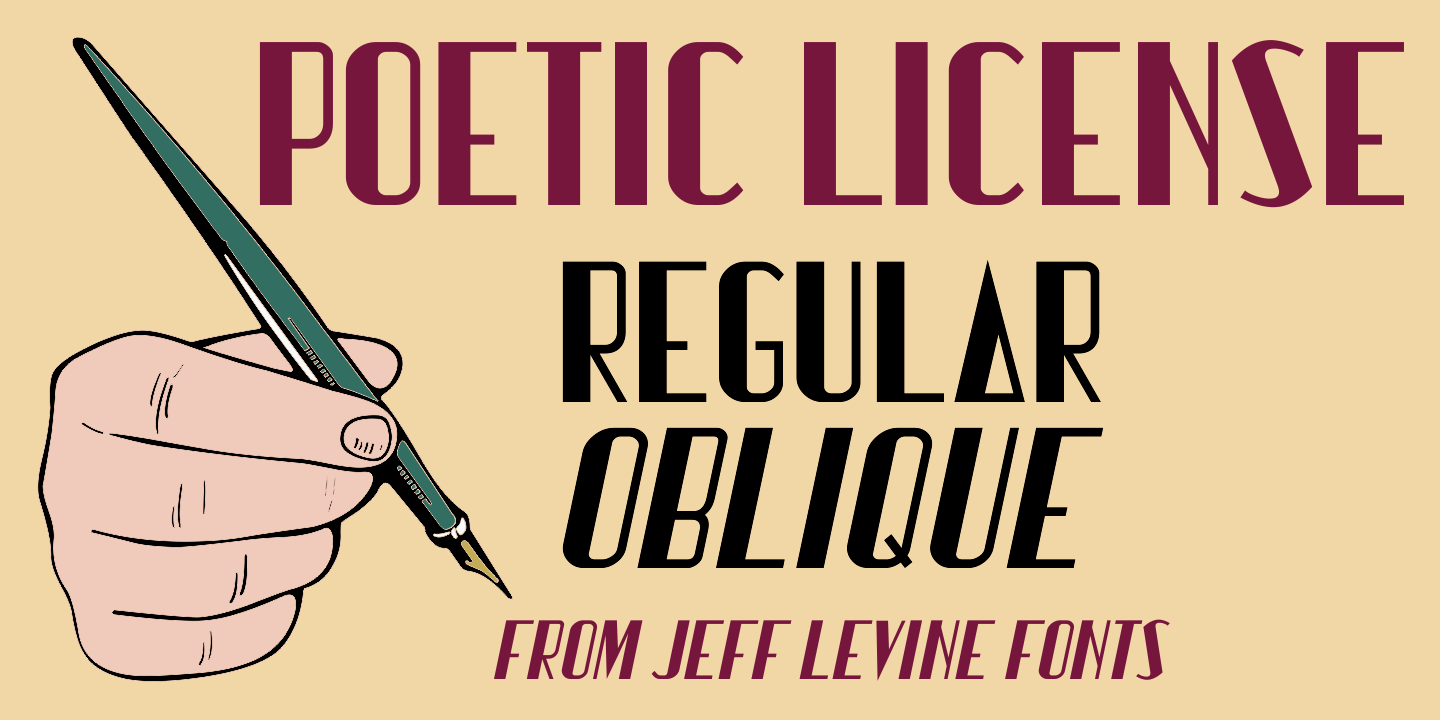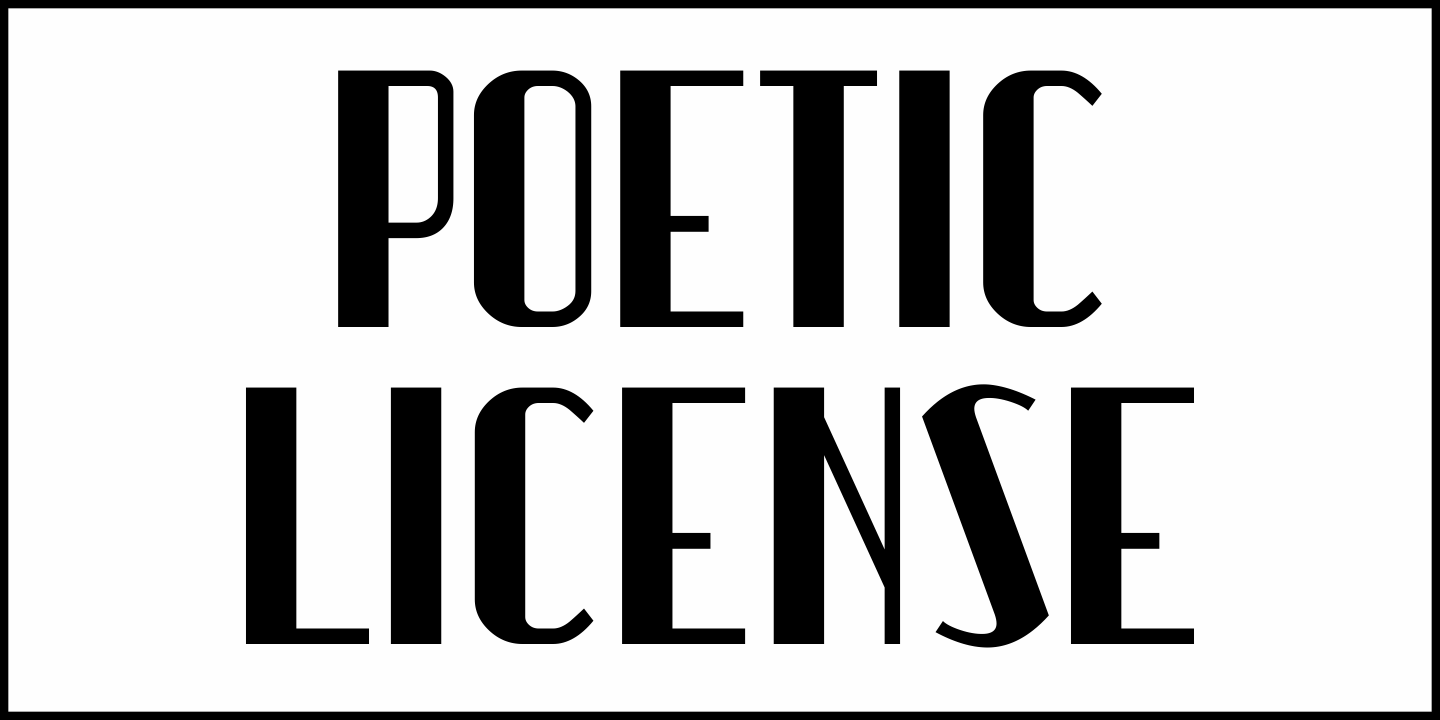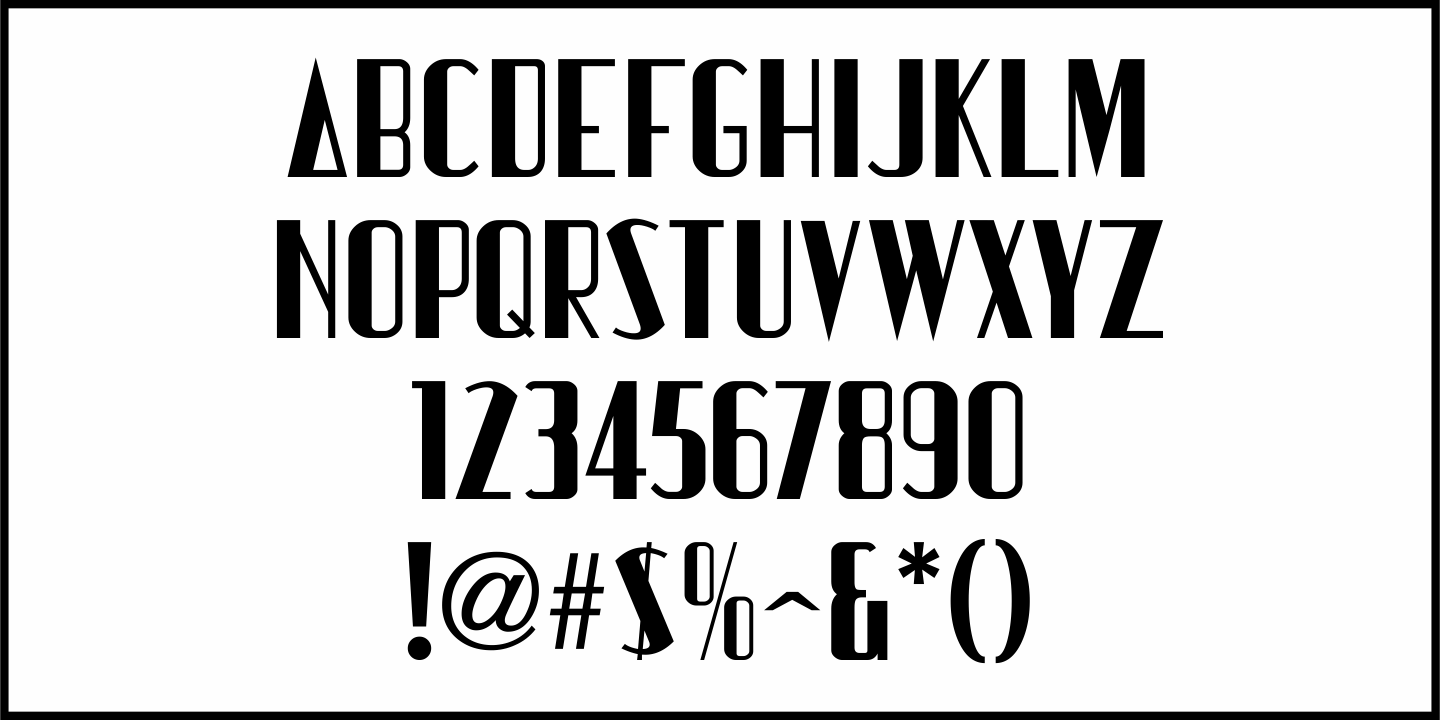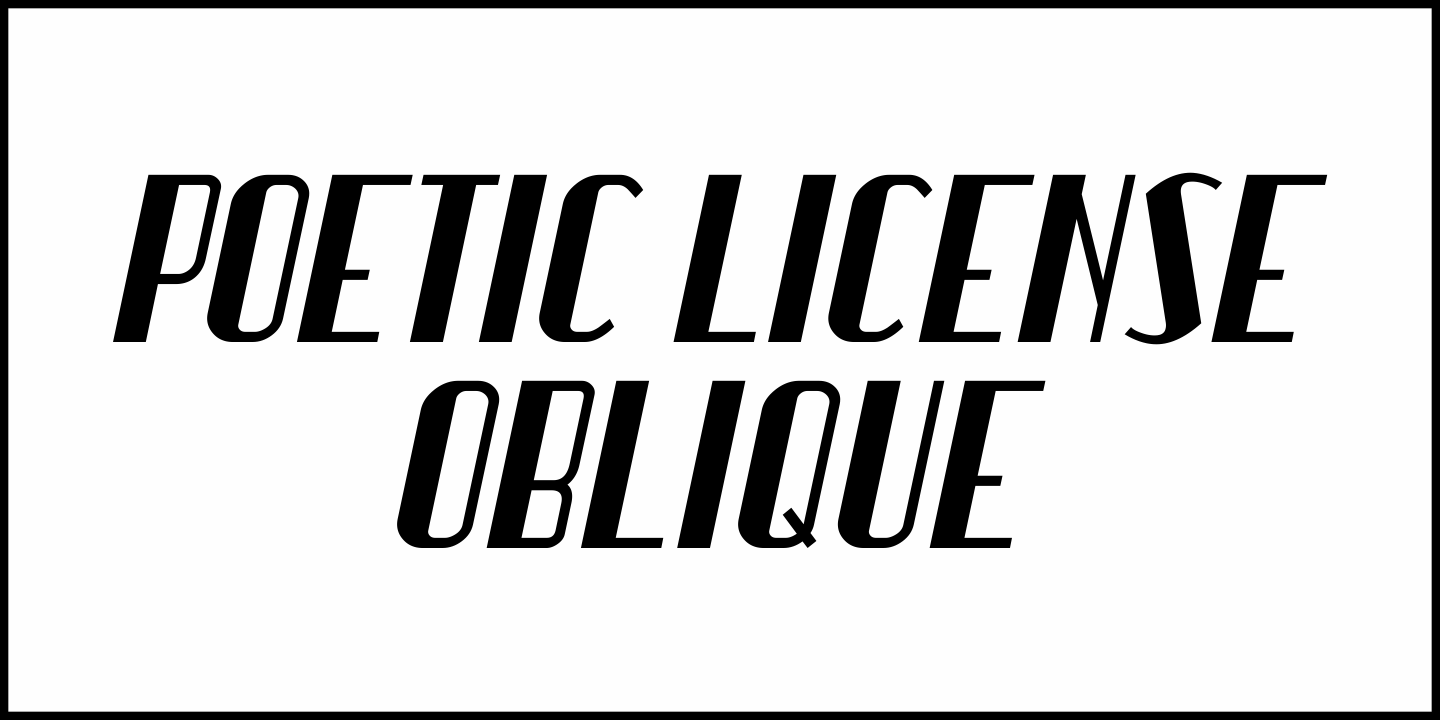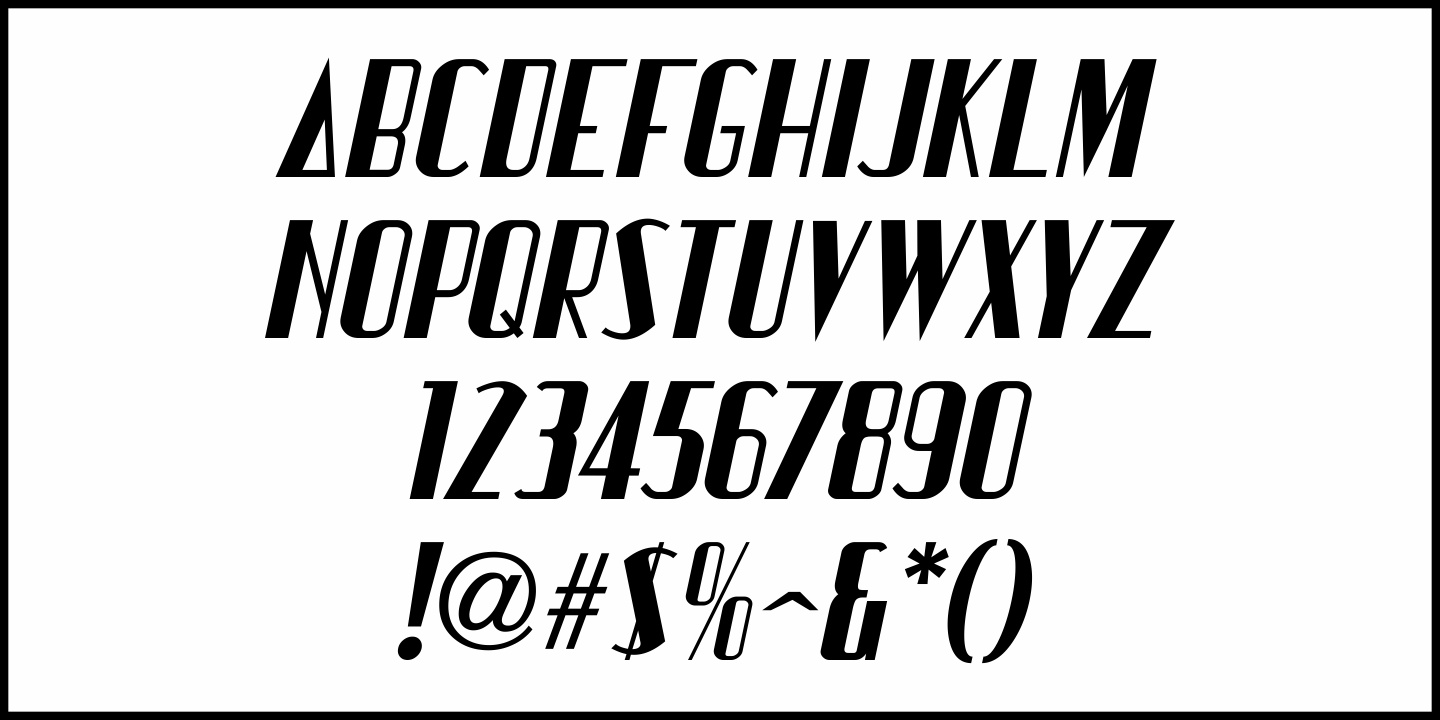
Poetic License
The book cover for Argentinian poet Carlos la PĂșa's "La Crencha Engrasada" ["The Greased Crencha"] had its title hand lettered in an Art Deco thick-and-thin stle with a bit of an eccentric flare.
This is now available as Poetic License JNL in both regular and oblique versions
The word 'Crencha' means parting in Spanish.